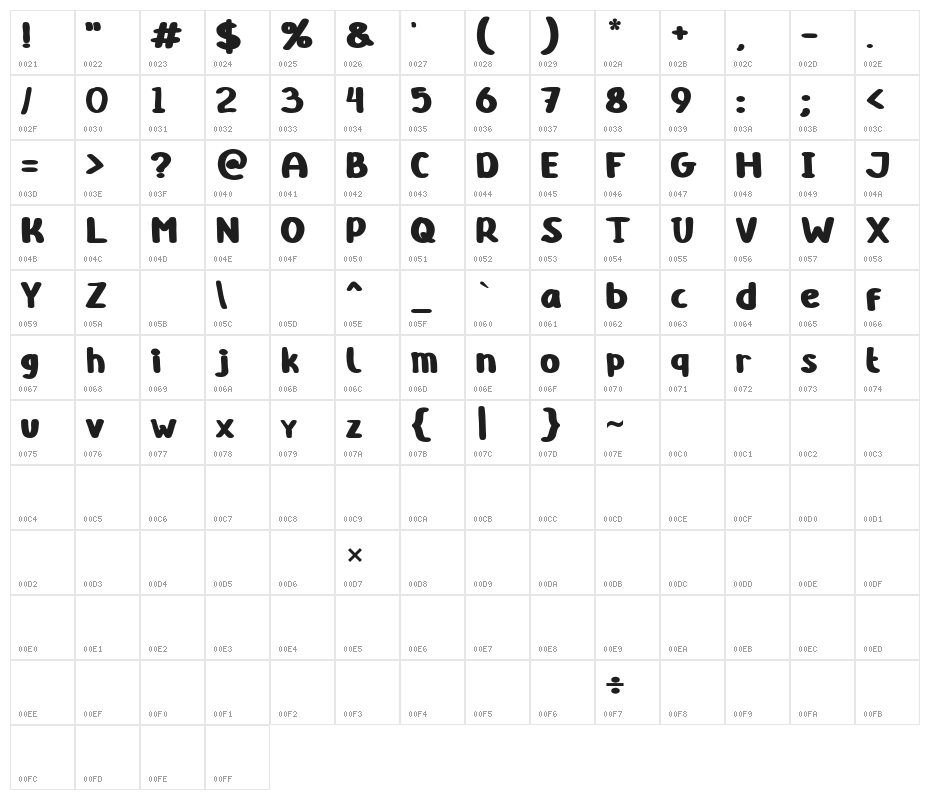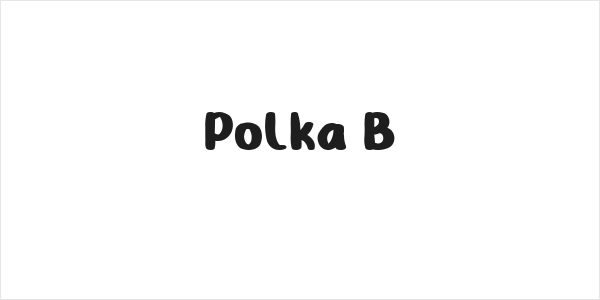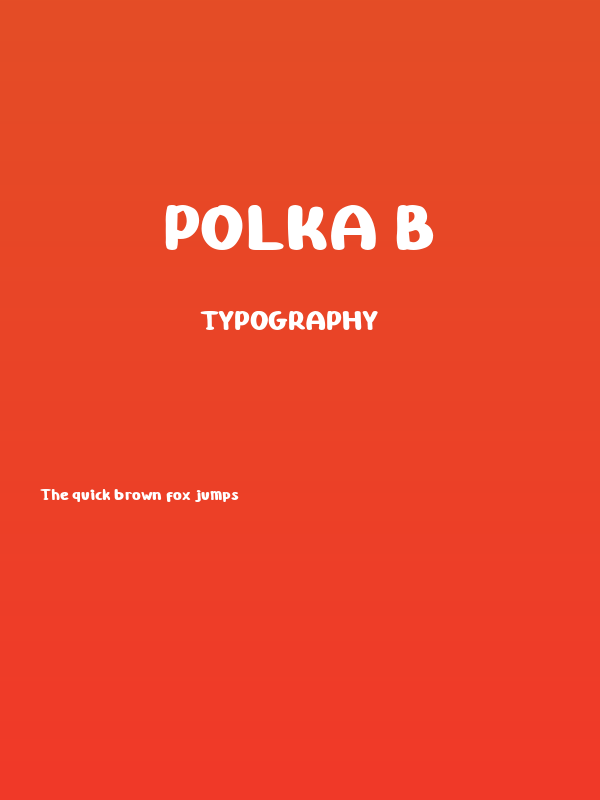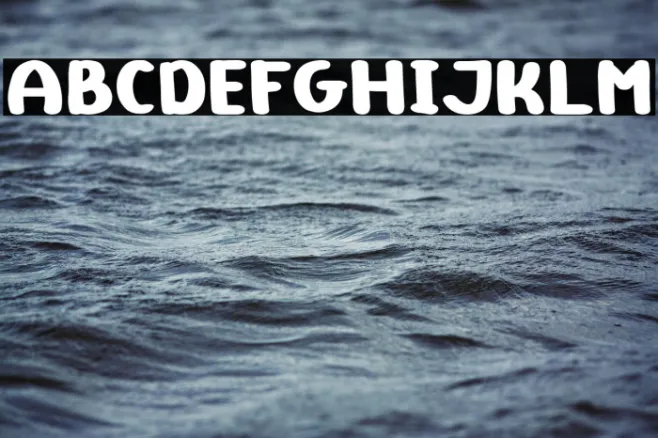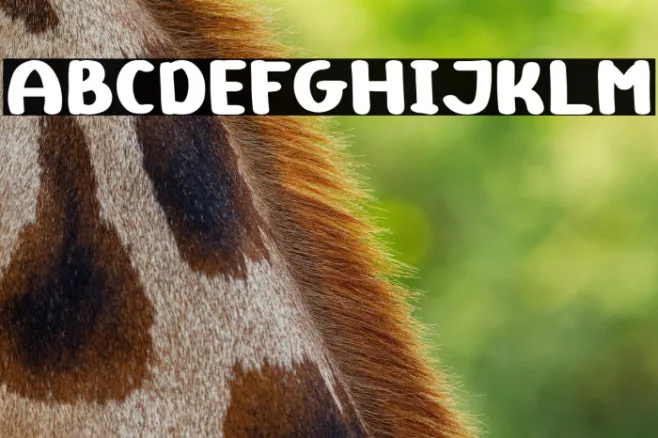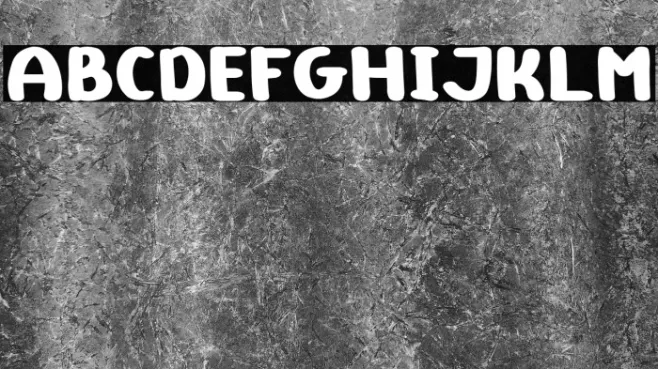
Polka B Font
Polka B Description
This playful and bold typeface features rounded, bubbly characters that exude a sense of fun and whimsy. The letters are thick and slightly irregular, giving them a hand-drawn appearance that adds to their charm. The font maintains a consistent weight throughout, with smooth curves and a friendly demeanor. Its unique style makes it stand out, perfect for projects that require a touch of personality and creativity. The numbers and special characters follow the same design ethos, ensuring a cohesive look across all text elements.